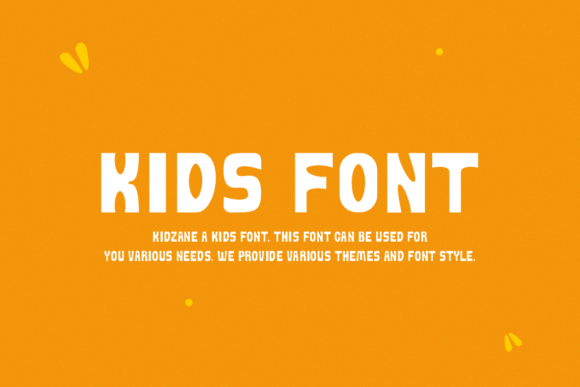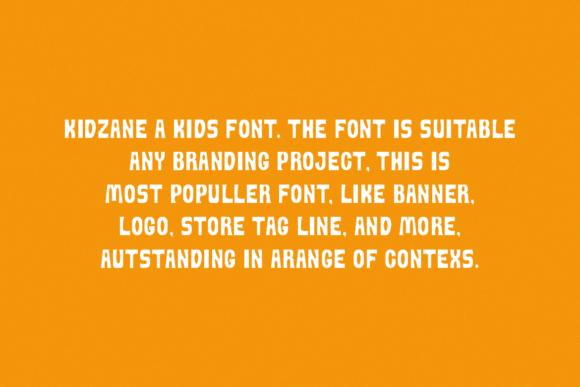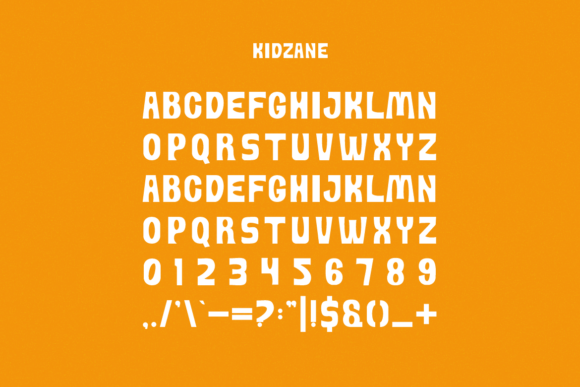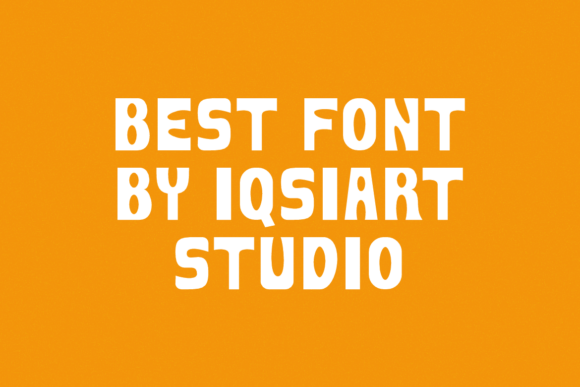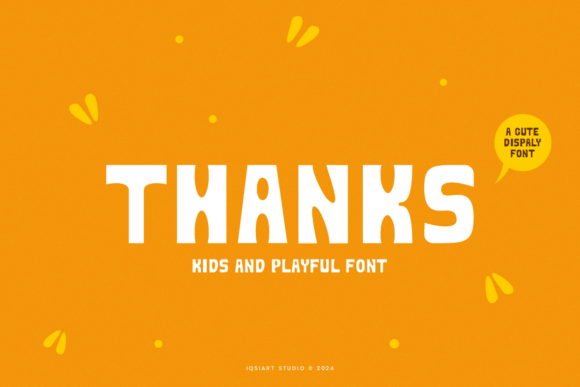
Introduction to Kidzane Font
Kidzane is a fun and playful display made just for kids.
It features bright colors and exciting designs that make learning and playing enjoyable With cool toys and games, Kidzane is a special place where kids can explore, create, and have a great time together.
Key Features of Kidzane Font